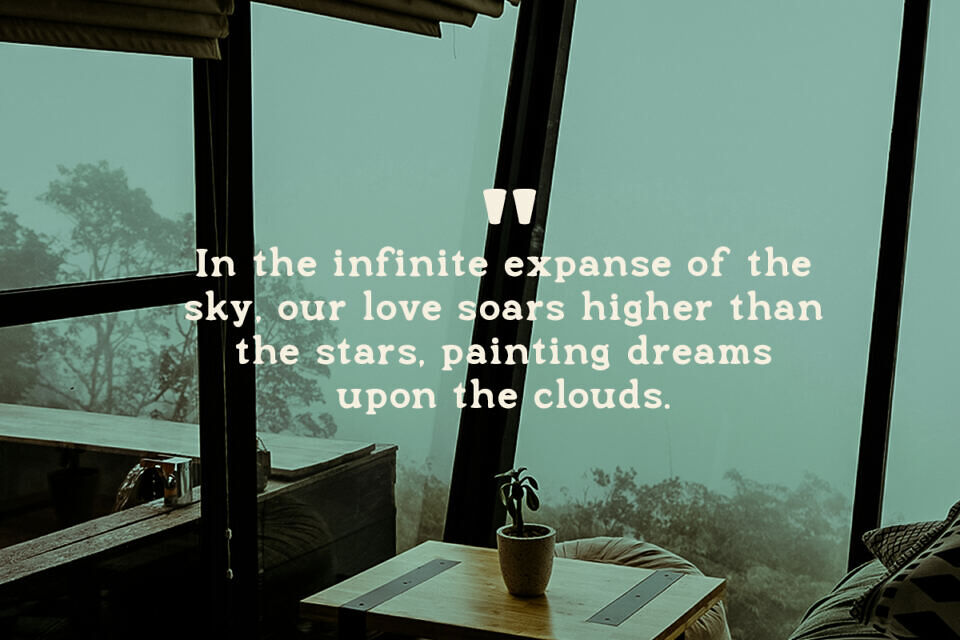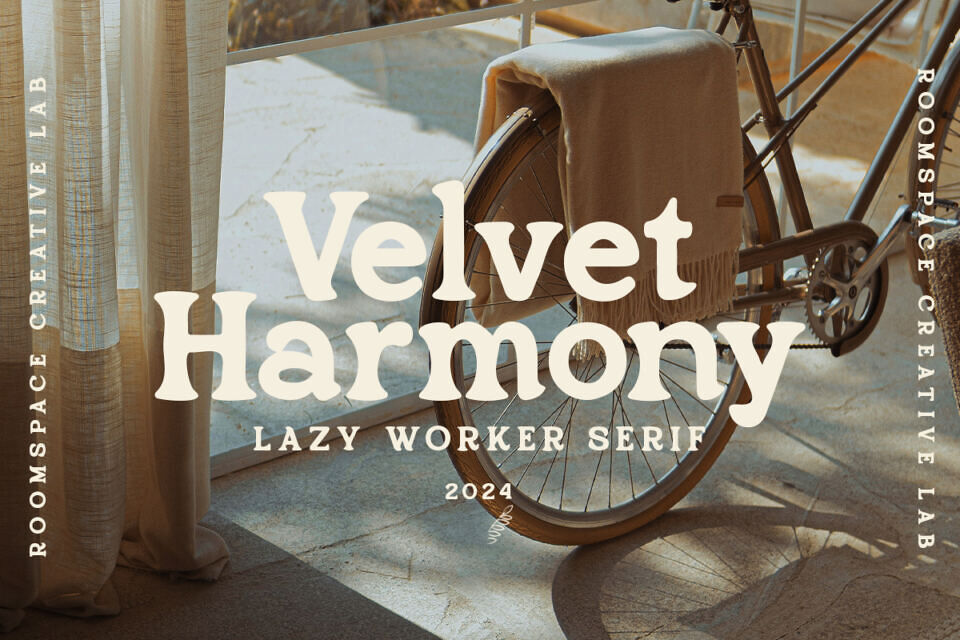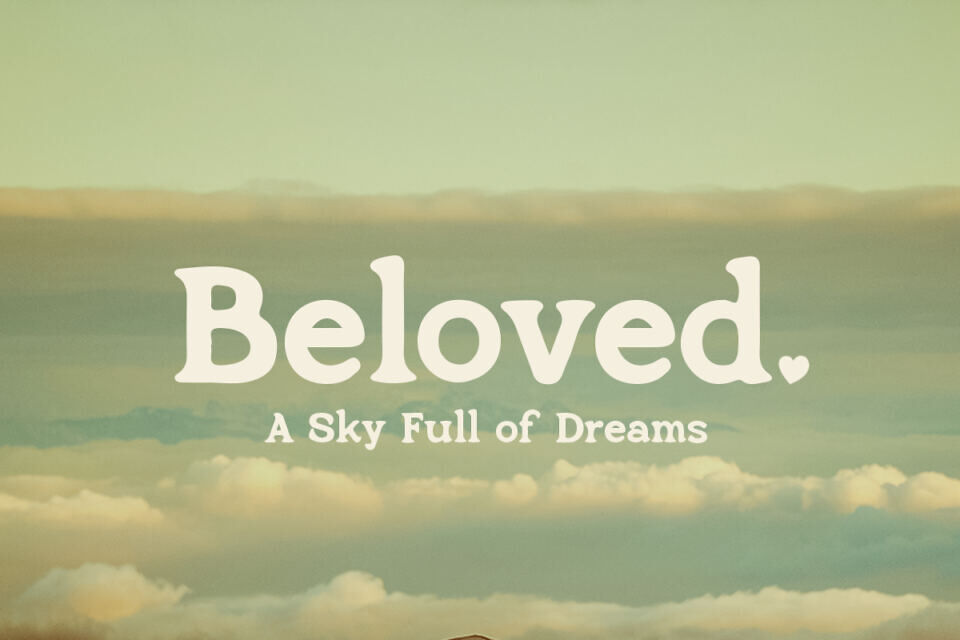
This handwritten serif font combines modern and retro styles, adding a personal touch to designs. Its unique, hand-drawn look and elegant structure make it perfect for branding, posters, and web designs.
With its versatile and adaptable style, it brings a charming, sophisticated feel to various projects. Ideal for graphic designers and brands, it offers a balance of artistic expression and professional quality, making it perfect for those seeking a trendy yet timeless font.